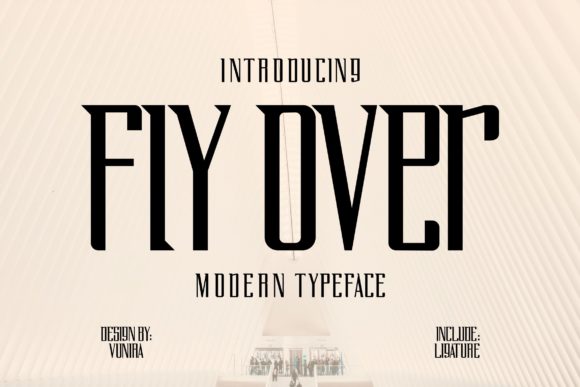
Behold, the majestic Fly over font, a serif masterpiece crafted by the ingenious Vunira. This font family exudes simplicity and casual elegance, effortlessly captivating your audience with its clean and modern aesthetic.
Unleash your creativity with Fly over, a font that seamlessly blends the charm of tradition with a contemporary twist. Its meticulously designed letters dance across the page, forming words that resonate with both sophistication and approachability. Whether gracing a formal document or adding a touch of allure to your casual designs, Fly over delivers an unforgettable impact.
Step into a world where elegance meets versatility with Fly over. This font family transcends the boundaries of genre, effortlessly enhancing everything from captivating posters and eye-catching headlines to enchanting invitations and heartfelt letters. Its versatility knows no bounds, allowing you to effortlessly craft designs that captivate and inspire.
Immerse yourself in the beauty of Fly over, a font that embodies the essence of timeless charm. Its graceful curves and sharp edges create a harmonious balance, inviting your readers to linger and savor every word. With Fly over, your designs will radiate a sense of sophistication and refinement, leaving a lasting impression that lingers long after the page is turned.
Adorn your designs with Fly over, a font that commands attention without overpowering your message. Its subtle yet striking presence ensures that your words take center stage, while its elegant style adds a touch of understated luxury. Experience the transformative power of Fly over as it elevates your designs to new heights, turning ordinary words into captivating expressions of art.
Take the plunge into the world of Fly over, a font that sparks imagination and ignites creativity. Its versatility and timeless beauty make it the perfect companion for a multitude of projects. Embrace the limitless possibilities of Fly over and watch as your designs blossom into masterpieces that command attention and leave an indelible mark.